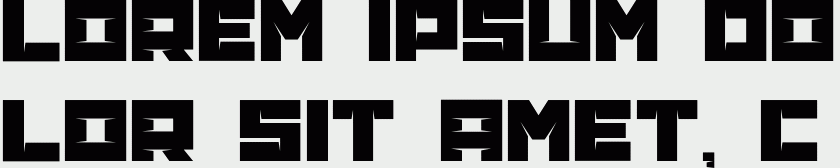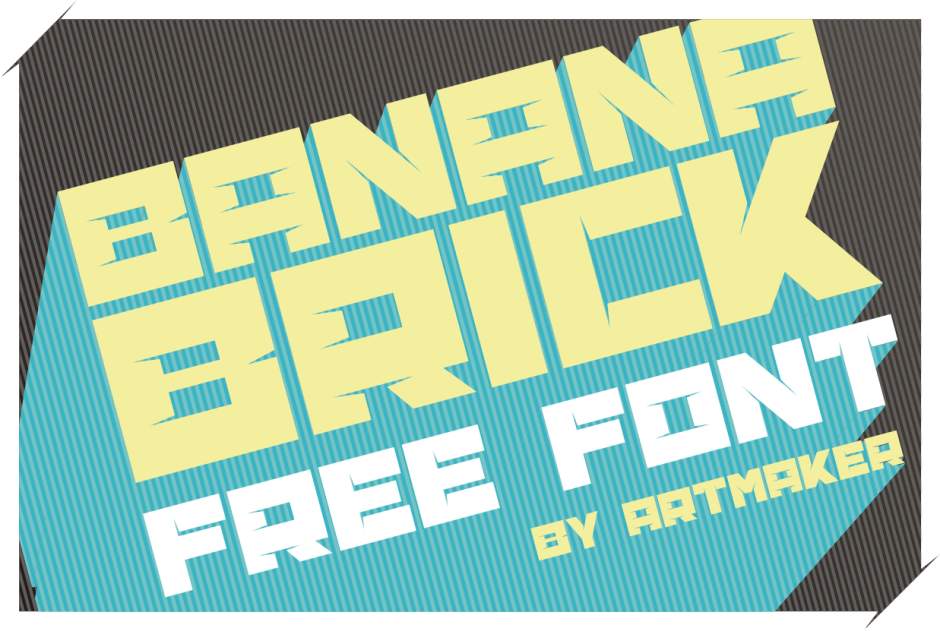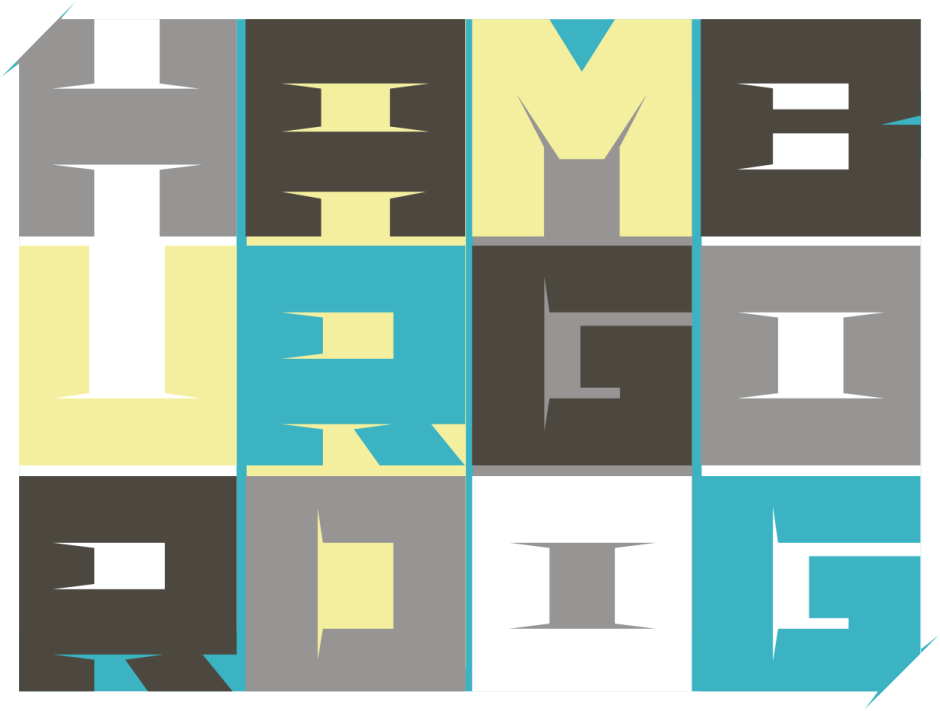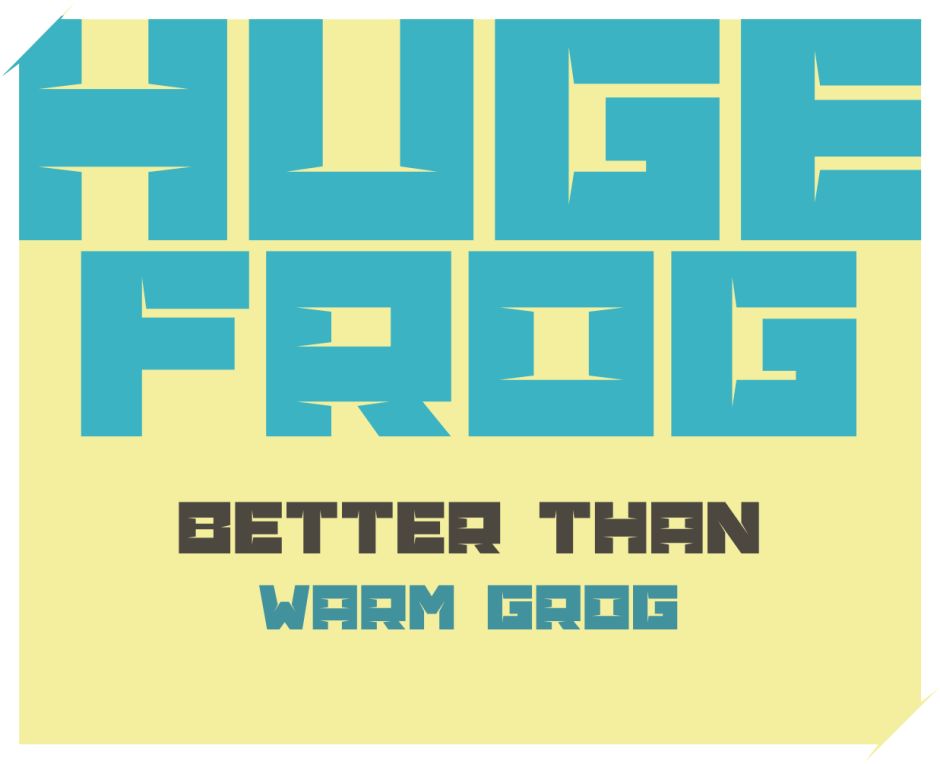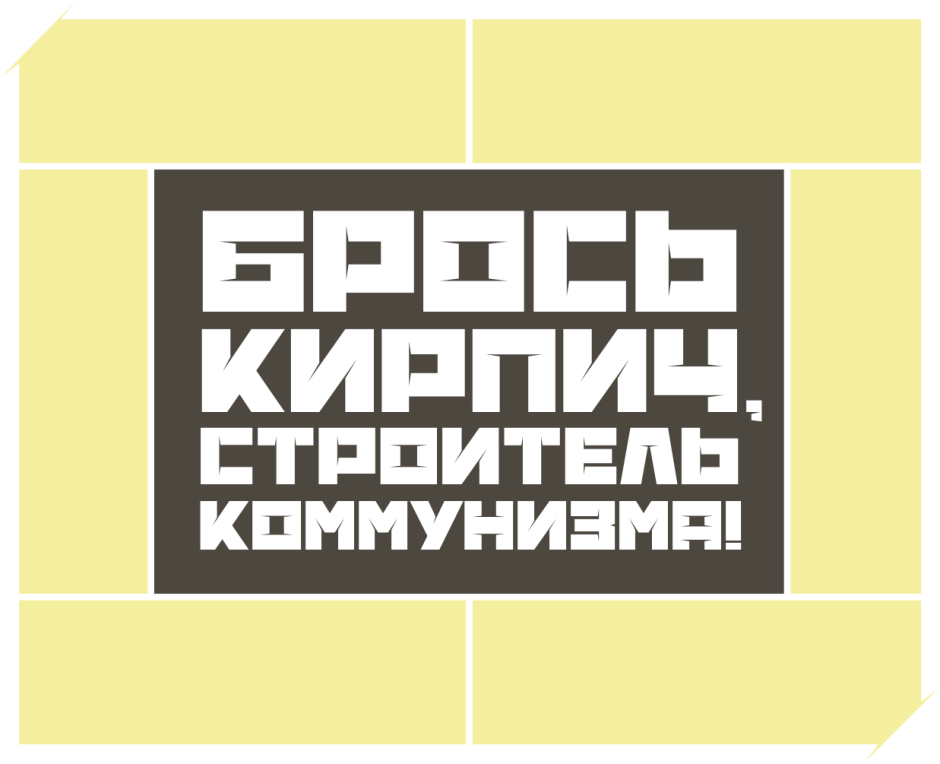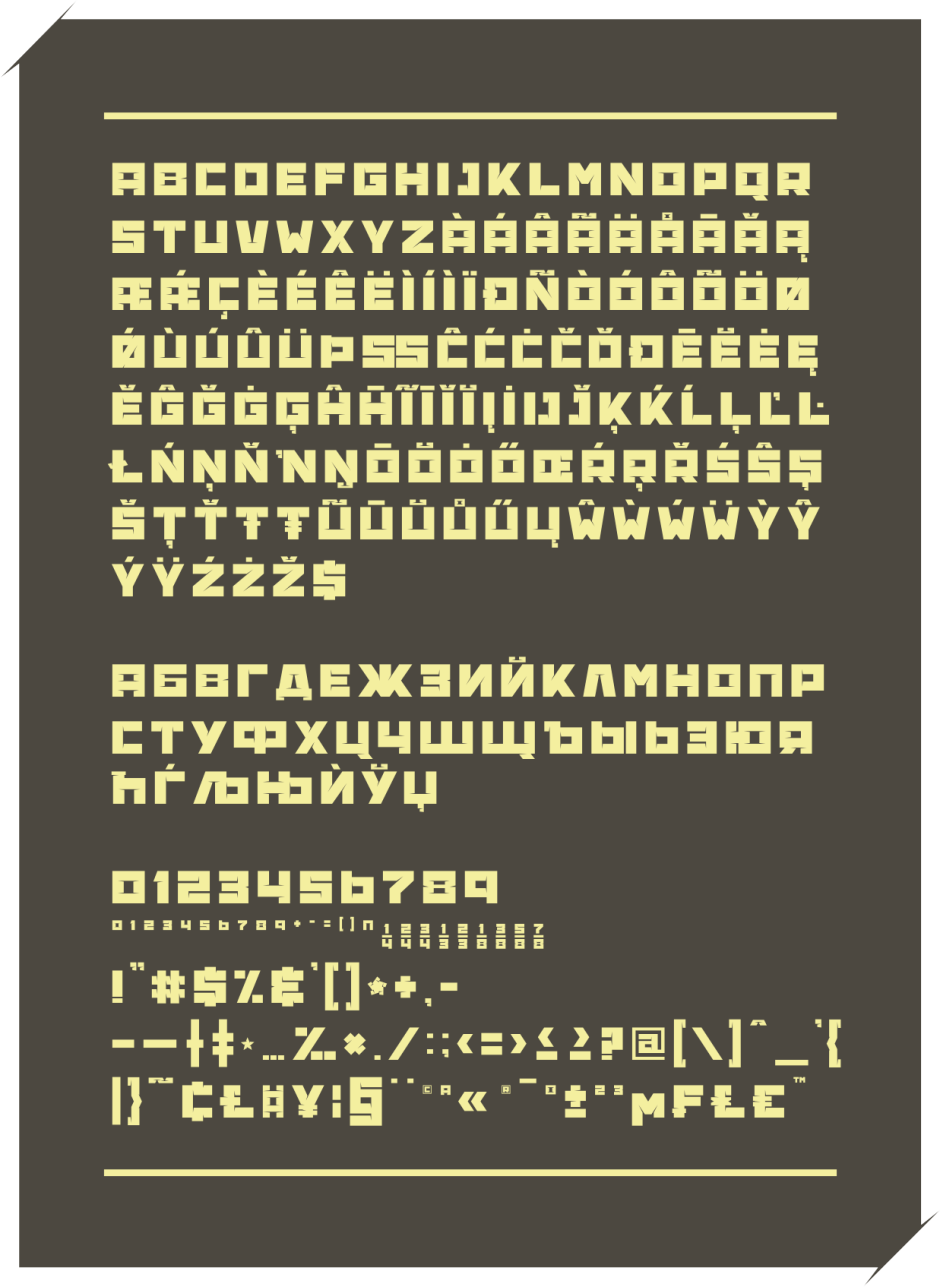
Banana Brick
Decorative square-shaped font for your posters, logos, package graphics etc. Feedbacks are welcomed at artmaker@inbox.lv Enjoy! =)
Designer: Anna Pocius